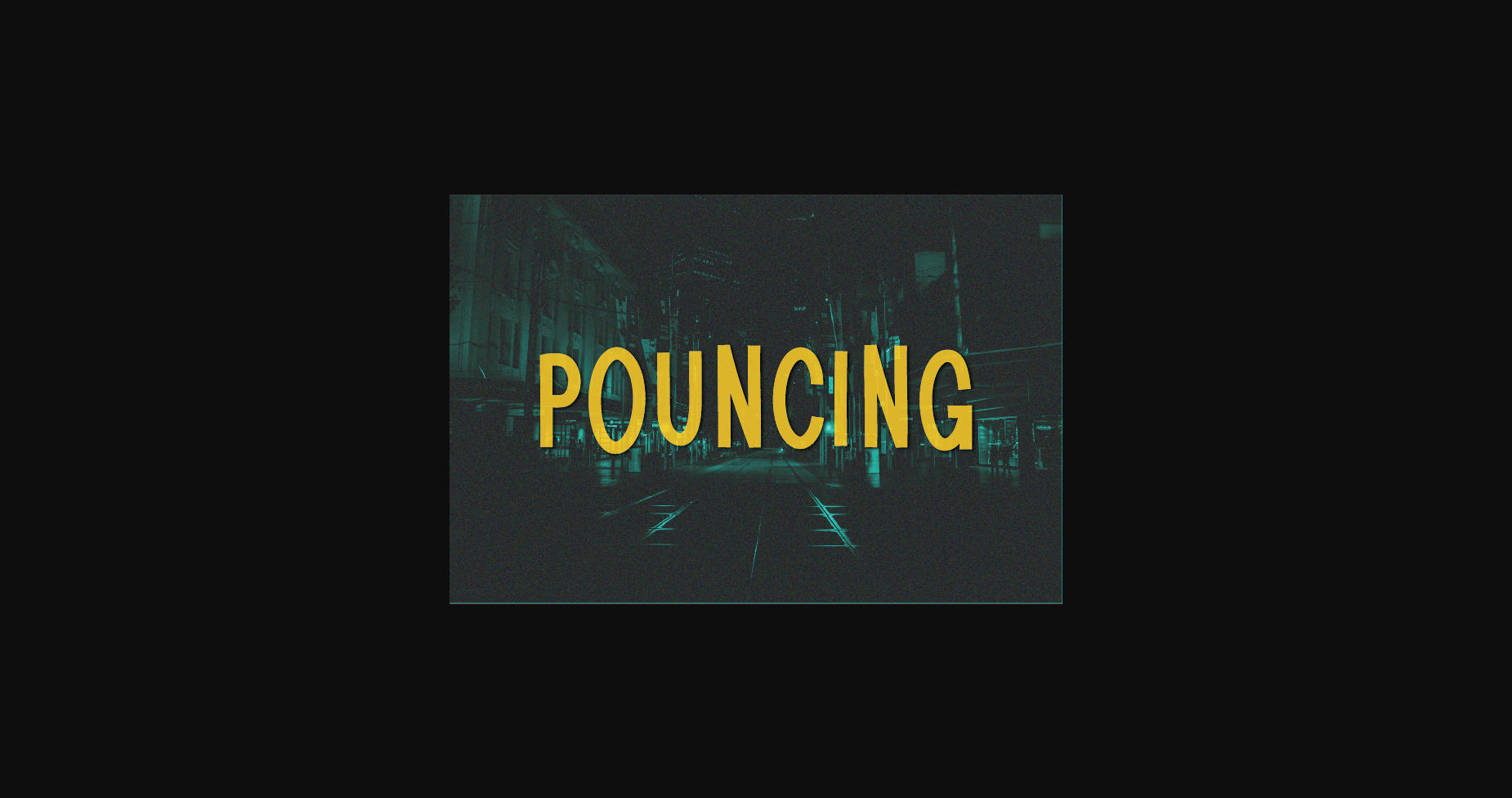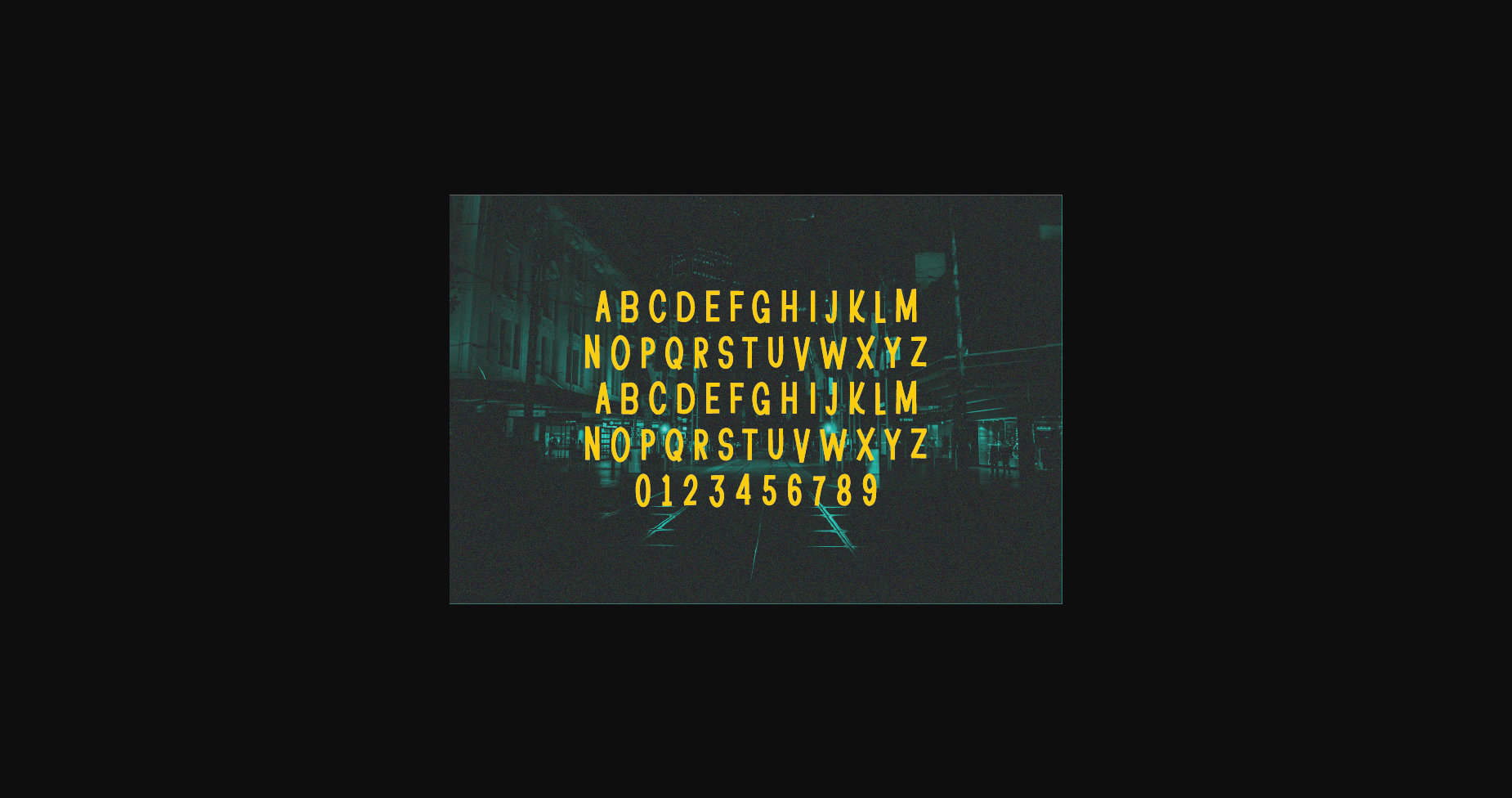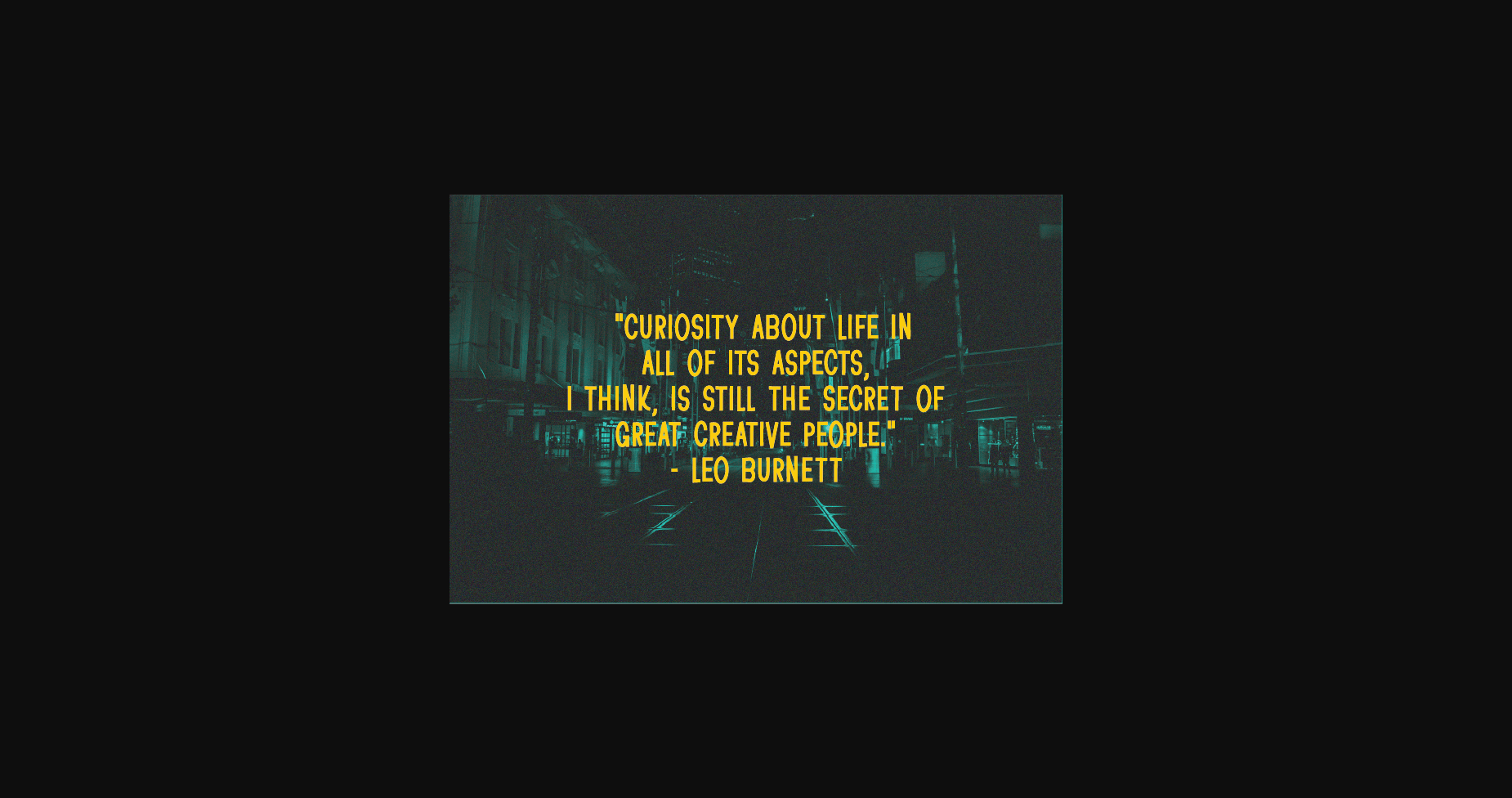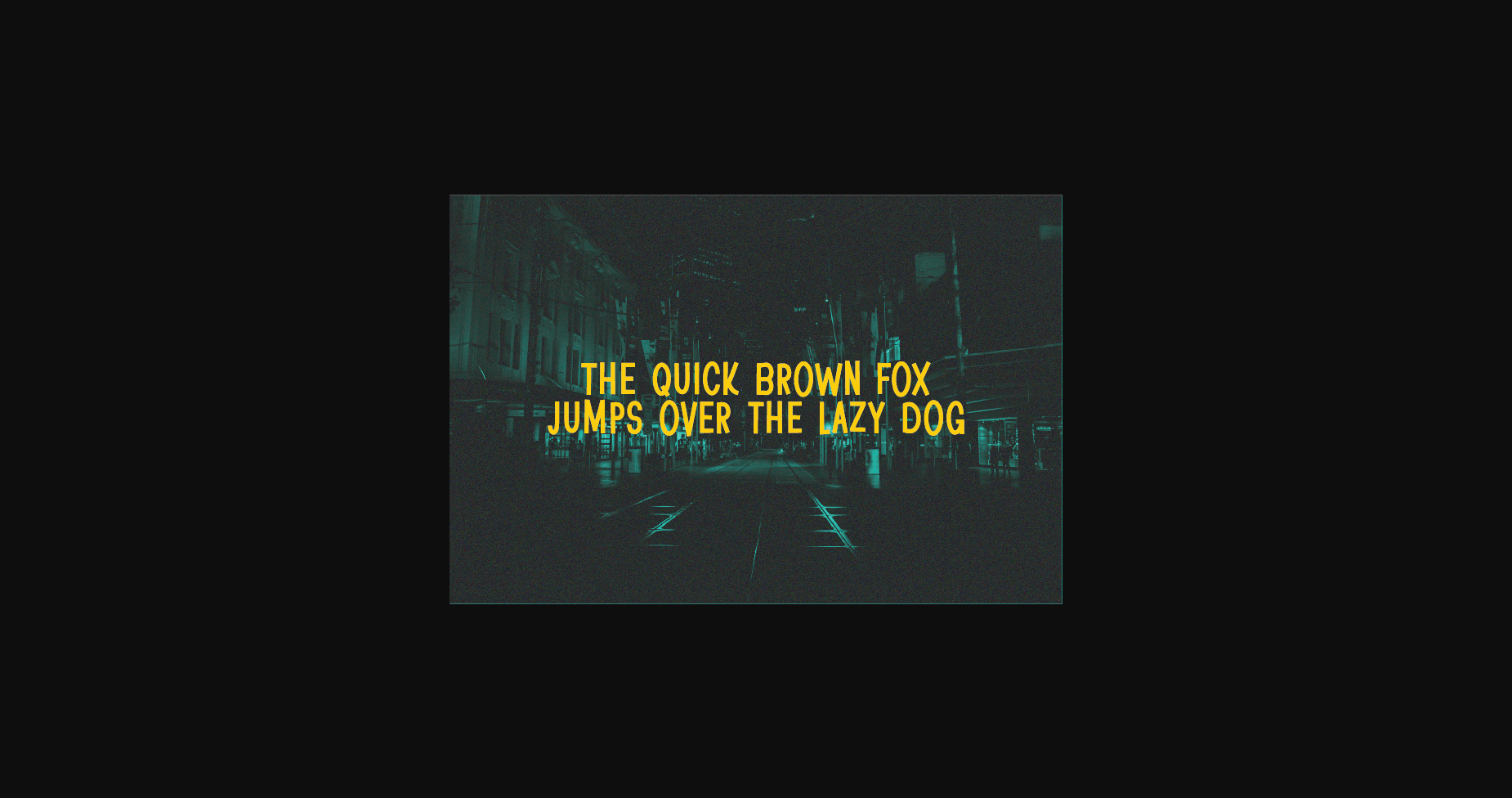
About Pouncing Font
Pouncing is an interesting and unique sans serif font perfect for quotes, notes, T-shirts, and many more. Add it to your font collection, and it will make your creative projects outstanding!